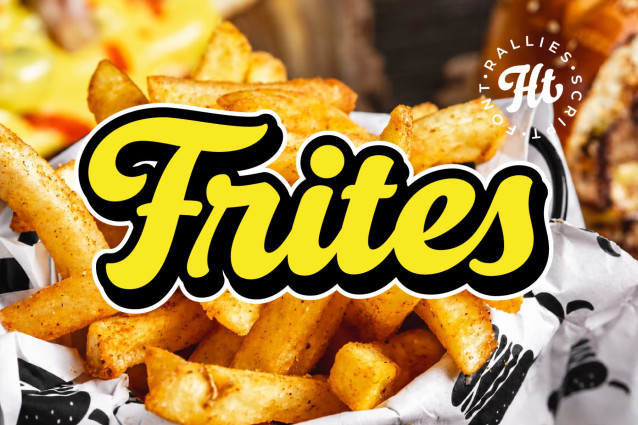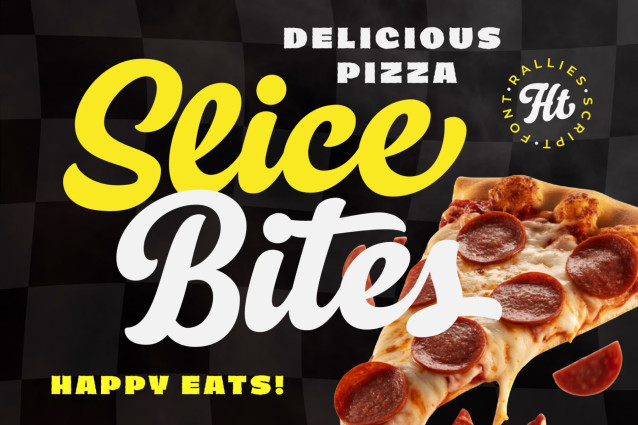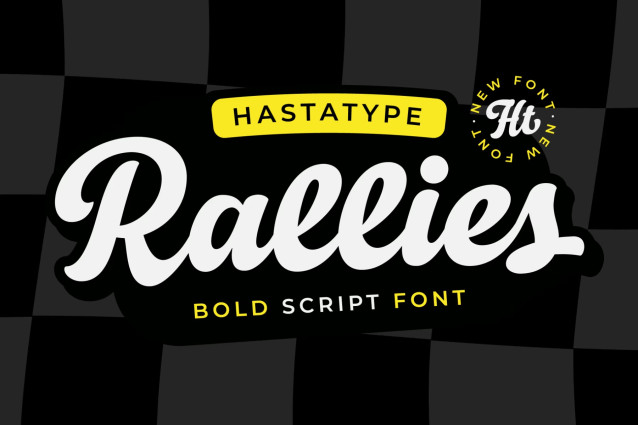
Rallies Script Font
Rallies is a bold retro script font inspired by classic American diners, vintage signage, and handcrafted lettering. Featuring smooth curves, thick strokes, and a friendly personality, Rallies is designed to create eye-catching logos, food branding, packaging, restaurant identities, café menus, and retro-inspired typography.
Whether you’re designing a burger logo, pizza branding, food packaging, a coffee shop identity, or vintage-style merchandise, Rallies is the perfect script font for adding warmth, confidence, and timeless character to your designs.
Its carefully crafted letterforms flow naturally, creating authentic handcrafted typography while maintaining excellent readability across both print and digital media. From bold branding to social media graphics, Rallies delivers a professional look with effortless vintage charm.